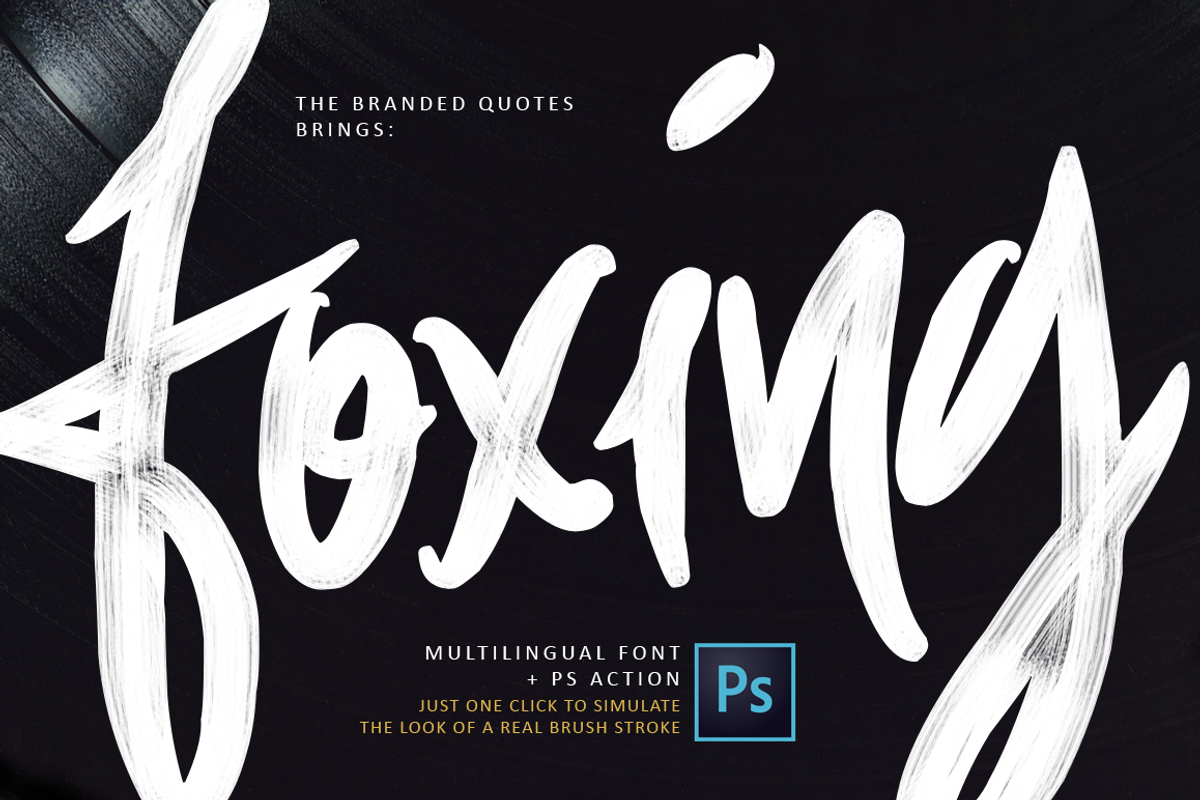
The Foxing Font + PS Action Free Download is a versatile and stylish typeface bundle that comes with both the unique Foxing Font and a custom Photoshop action to enhance your designs. Perfect for creating impactful logos, posters, invitations, and digital artwork, this bundle gives you the tools to easily apply effects and create stunning visuals. Please note, for commercial use, a license must be purchased. You can download it for free for testing purposes.
With its bold and modern design, the Foxing Font is perfect for projects that need a strong visual impact. The included Photoshop action allows you to apply special effects and transform your typography with ease, giving your designs a professional touch. Whether you're designing for branding, digital content, or creative projects, this bundle enhances your work with ease.